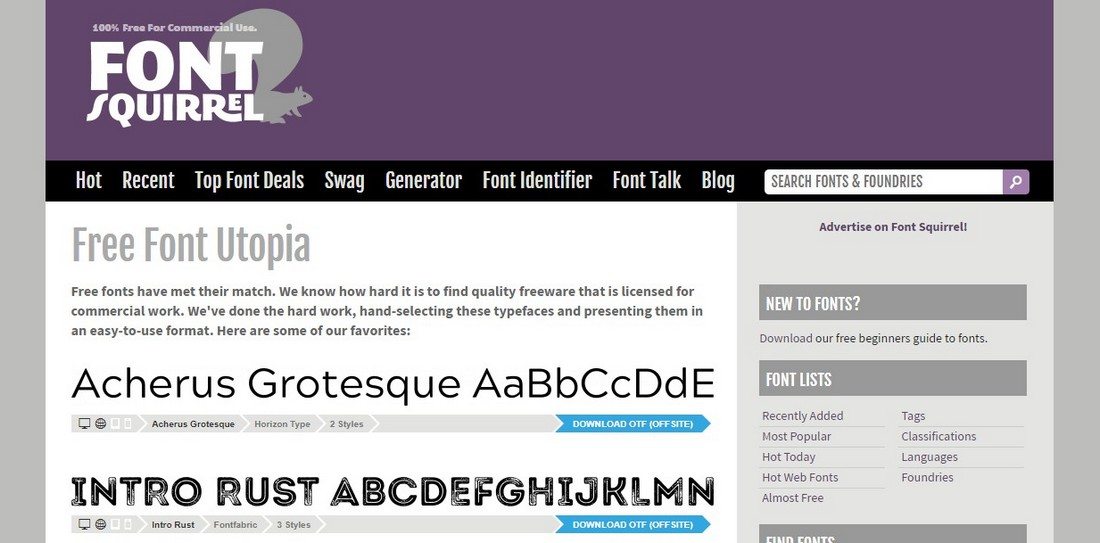
Best Free Fonts Website. Google, facebook, and amazon are just some of the popular websites that use arial. Arvo is a geometric slab.
For a direct solution to all your typeface needs, head over to 1001 free fonts—a website that offers way more options than its name suggests. You can use the free version of the font with your personal projects. The website does not charge any money for using the fonts, which is why it is considered the best free fonts download website.
The Best Font Sites Tend To Be Adobe Fonts, Google Fonts, And Microsoft Fonts.
First, select and download a custom font from a web font provider such as adobe fonts, typenetwork, or fonts. Get a list of the 10 best free font websites for designers. Most of these free fonts come with a commercial license, so rest assured that your designs will have the best typefaces, completely free of the legal hassles that come with font usages.
Junicode bold condensed in free fonts. On fonts.google.com you’ll find an amazing selection of google fonts, all completely free to download. Top 10 free font websites for designers;
Each Font Is Reviewed By A Fontspace Moderator, Checked For Font Quality Issues, And Licenses Are Verified.
Even if that means we send you elsewhere to get them. For a direct solution to all your typeface needs, head over to 1001 free fonts—a website that offers way more options than its name suggests. Explore and download beautiful free fonts for personal and commercial use.
Every Font Is Added And Categorized By A Real Person.
The kelson family offers 9 free fonts (from sans bold, to russian light and everything in between) with numerals, punctuation, and multilingual support so that you can truly use it across projects. Ad utilize wix's drag & drop design tools to create your own stunning website online. Google fonts is a wonderful creation by google which gives you every type of font.